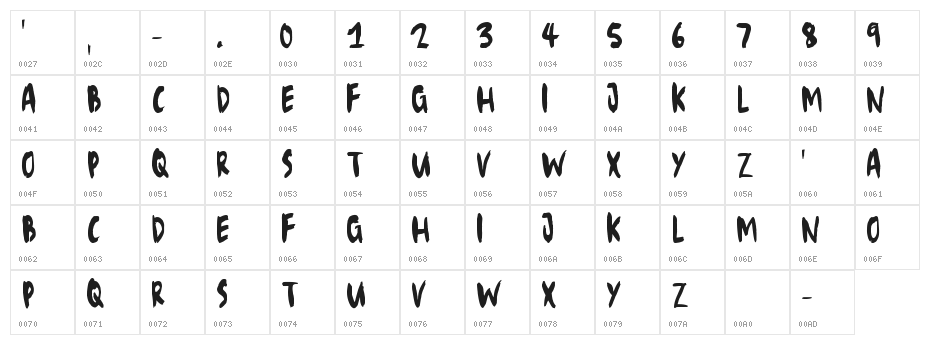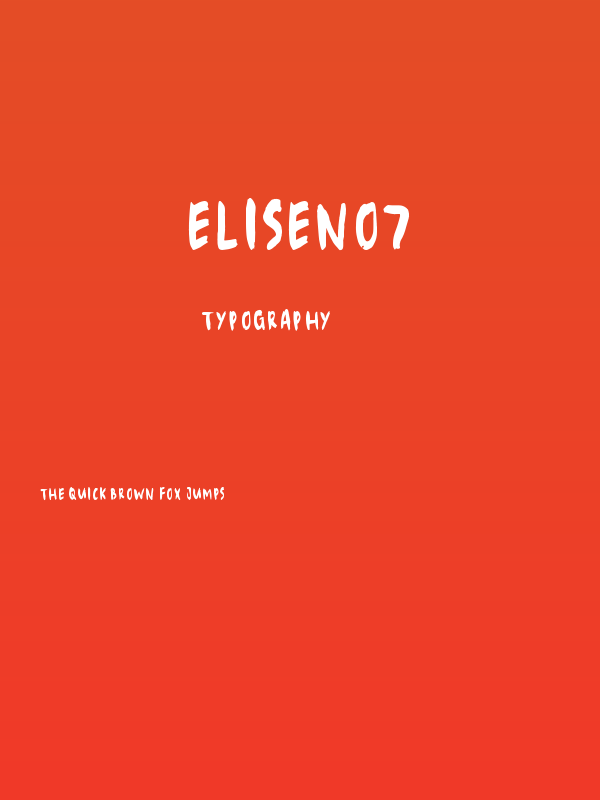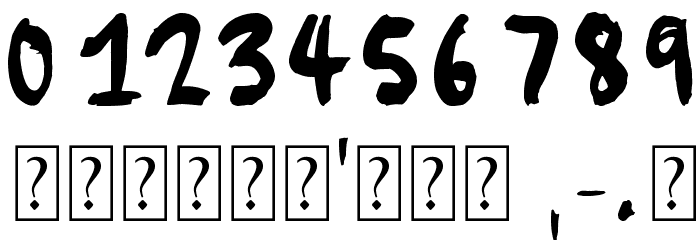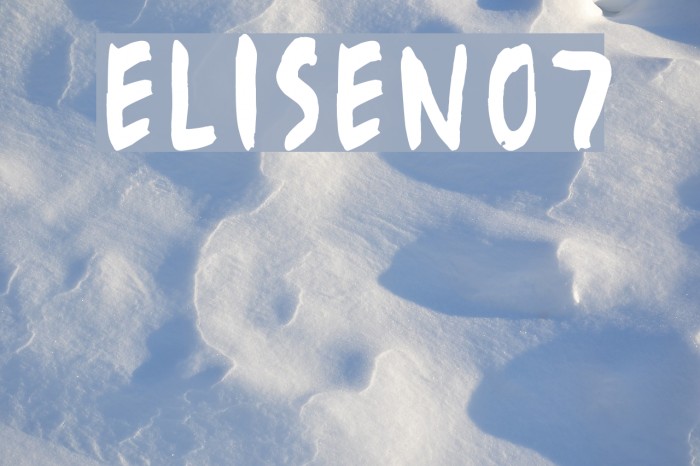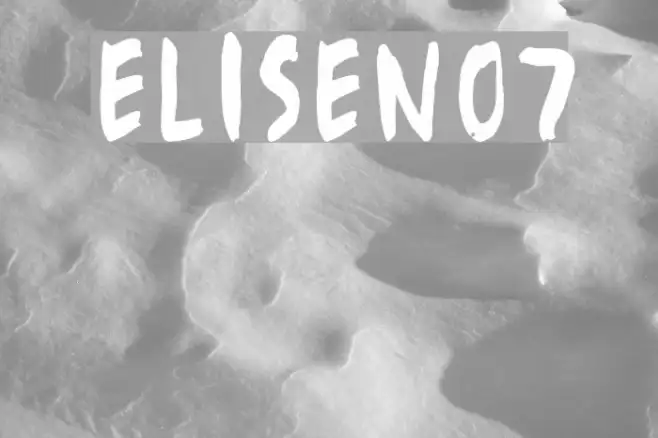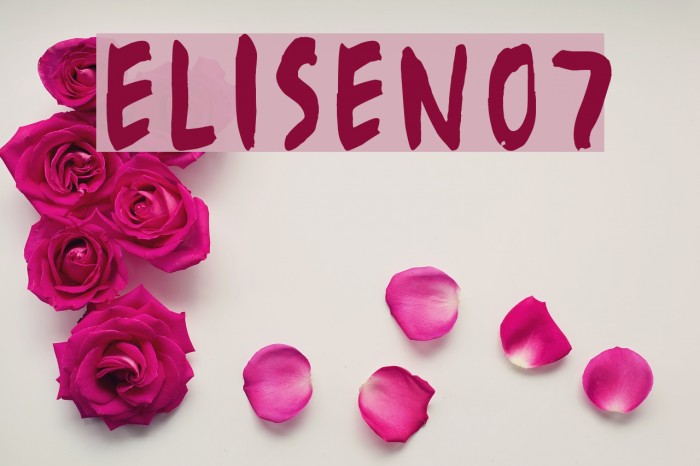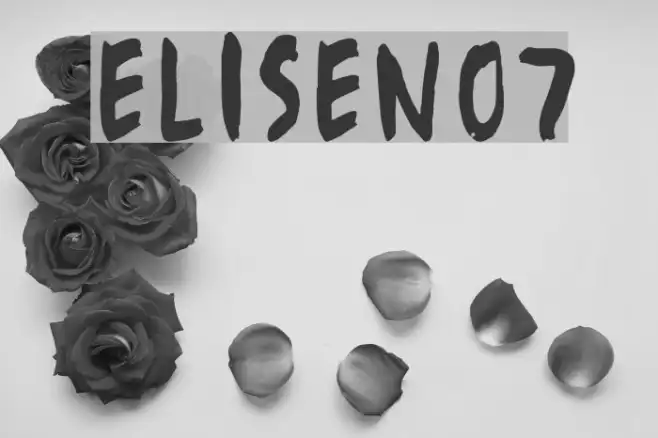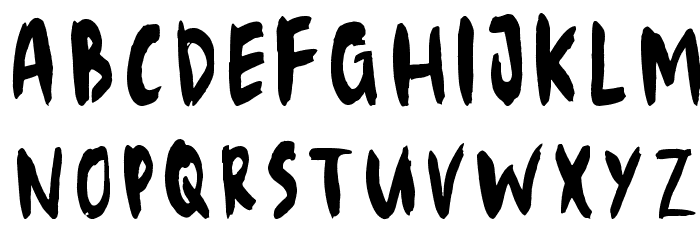
EliseNo7 Font
EliseNo7 Description
This font features a bold, brush-like appearance with a hand-drawn aesthetic. The characters are slightly irregular, giving it a casual and artistic feel. The uppercase and lowercase letters maintain a consistent style, with rounded edges and varying stroke widths that add to its dynamic look. The numbers and special characters follow the same design principles, ensuring uniformity across all glyphs. Its playful and energetic style makes it suitable for creative projects that require a personal touch.
| Proposed Projects | Ideal for posters, greeting cards, branding, and social media graphics. |